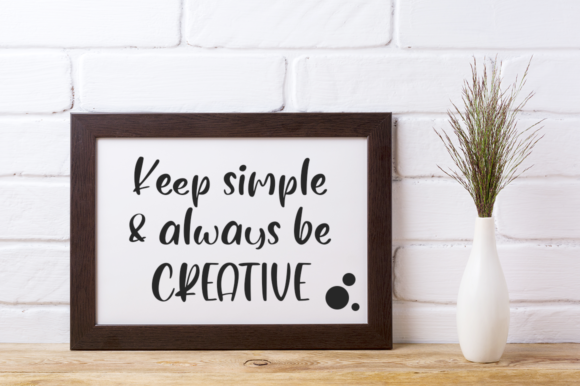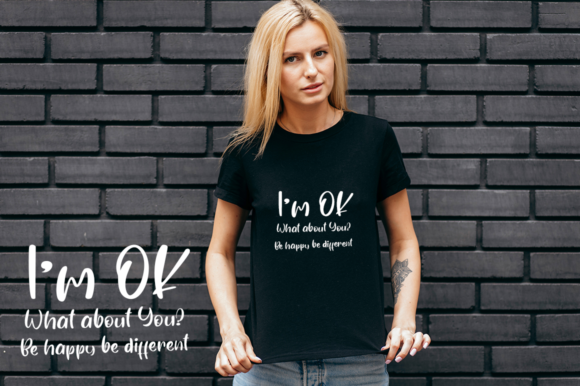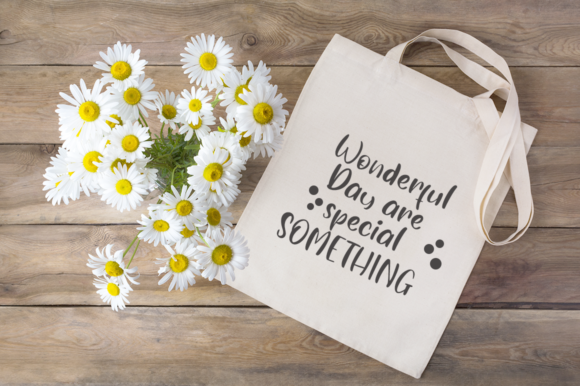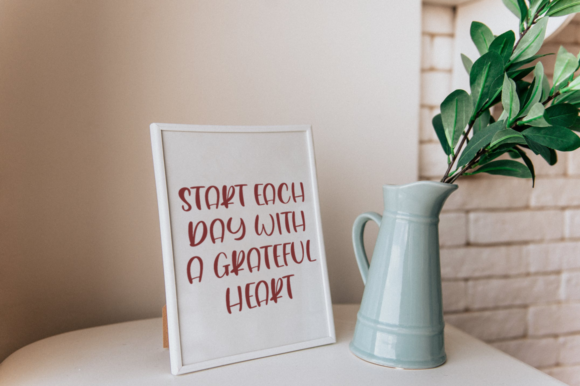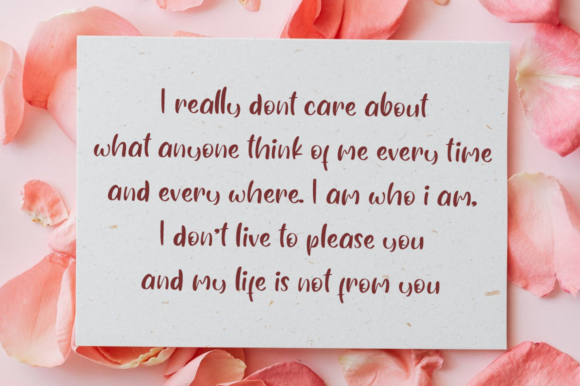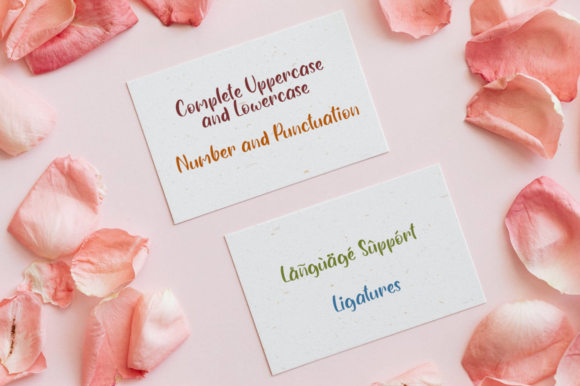
Introducing Florida Orange Font: The Ultimate Display Font for Joyful Designs
Are you tired of using the same old fonts in your designs? Look no further! Florida Orange Font is here to add a splash of fun and quirkiness to your creative projects. This adorable display font is perfect for designers and crafters who want to make their designs stand out from the crowd.
What Makes Florida Orange Font So Special?
Florida Orange Font is a cute and quirky display font that is sure to bring a smile to your face. Its unique and playful design makes it perfect for adding a joyful touch to your designs. Whether you’re working on a branding project, a social media graphic, or a craft project, this font is sure to add a pop of personality.
Key Features of Florida Orange Font
- Cute and Quirky Design: Florida Orange Font has a unique and playful design that is sure to grab attention.
- Display Font: This font is perfect for headlines, titles, and other display text.
- Easy to Read: Despite its playful design, Florida Orange Font is easy to read and understand.
- Versatile: This font can be used in a variety of designs, from branding and advertising to crafting and DIY projects.
How to Use Florida Orange Font in Your Designs
Florida Orange Font is incredibly easy to use and can be incorporated into your designs in a variety of ways. Here are a few ideas to get you started:
- Branding and Advertising: Use Florida Orange Font to add a playful touch to your branding and advertising materials, such as business cards, brochures, and social media graphics.
- Crafting and DIY Projects: Add a personal touch to your crafting and DIY projects, such as handmade cards, gift tags, and scrapbook pages.
- Signage and Posters: Use Florida Orange Font to create eye-catching signage and posters for events, sales, and promotions.
Tips for Getting the Most Out of Florida Orange Font
Here are a few tips for getting the most out of Florida Orange Font:
- Use it Sparingly: While Florida Orange Font is cute and playful, it can be overwhelming if used too much. Use it sparingly to add a pop of personality to your designs.
- Pair it with Other Fonts: Florida Orange Font pairs well with other fonts, such as sans-serif fonts and script fonts. Experiment with different pairings to find the perfect combination.
- Experiment with Colors: Florida Orange Font looks great in a variety of colors, from bright and bold to pastel and soft. Experiment with different colors to find the perfect look for your design.
Florida Orange Font is a unique and playful display font that is sure to add a joyful touch to your designs. With its cute and quirky design, ease of use, and versatility, this font is perfect for designers and crafters who want to make their designs stand out. So why wait? Add Florida Orange Font to your design toolkit today and start creating joyful and eye-catching designs!
Whether you’re a seasoned designer or a crafty DIY enthusiast, Florida Orange Font is sure to become a favorite in your design arsenal. So go ahead, get creative, and have fun with Florida Orange Font!